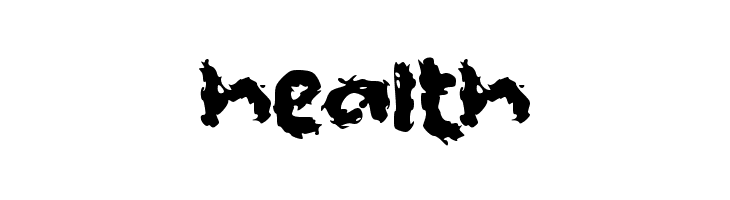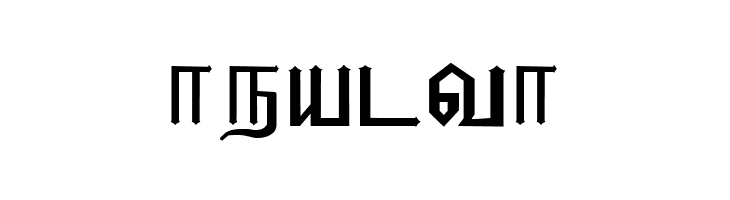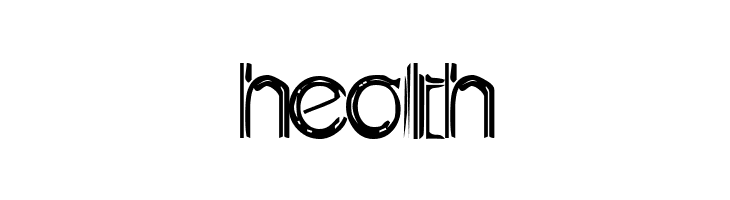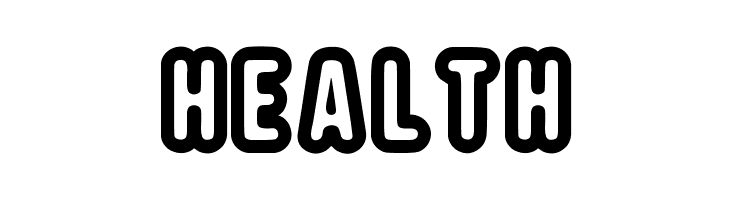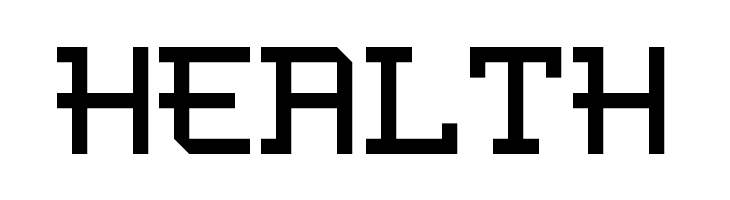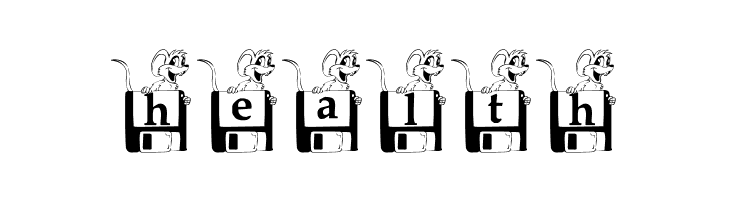
A graceful and elegant handwritten font with fluid, flowing letterforms.
A bold, decorative font with intricate patterns for eye-catching designs.
A distressed, chaotic font with jagged edges and a grunge aesthetic.
A whimsical decorative font with cartoon characters integrated into each letter.
A decorative font with intricate, batik-inspired patterns and interlocking loops.
A spooky, distressed font with jagged, dripping characters.
A playful, bold, and handwritten-style font with rounded edges.
A futuristic, decorative font with bold, geometric lines and intricate detailing.